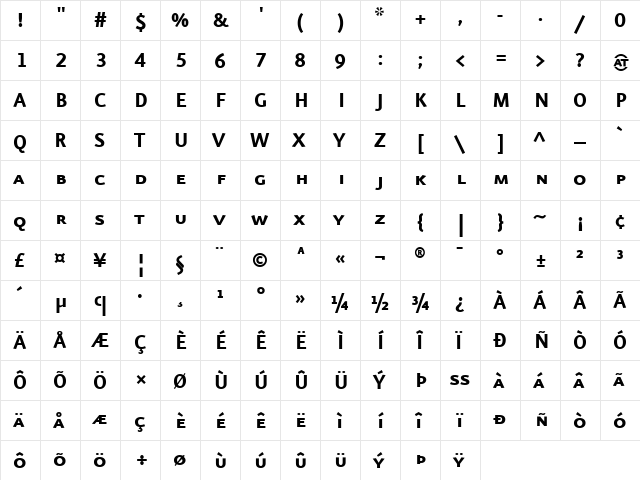
EurekaSans-BoldCaps Regular
| Foundry | Peter Bilak, published by FontShop International for the FontFont library |
Design Context for EurekaSans-BoldCaps Typeface
EurekaSans-BoldCaps takes a measured approach to typography — its balanced proportions and neutral character make it a reliable workhorse for both digital and print work. The heavy weight commands attention and anchors typographic hierarchies.